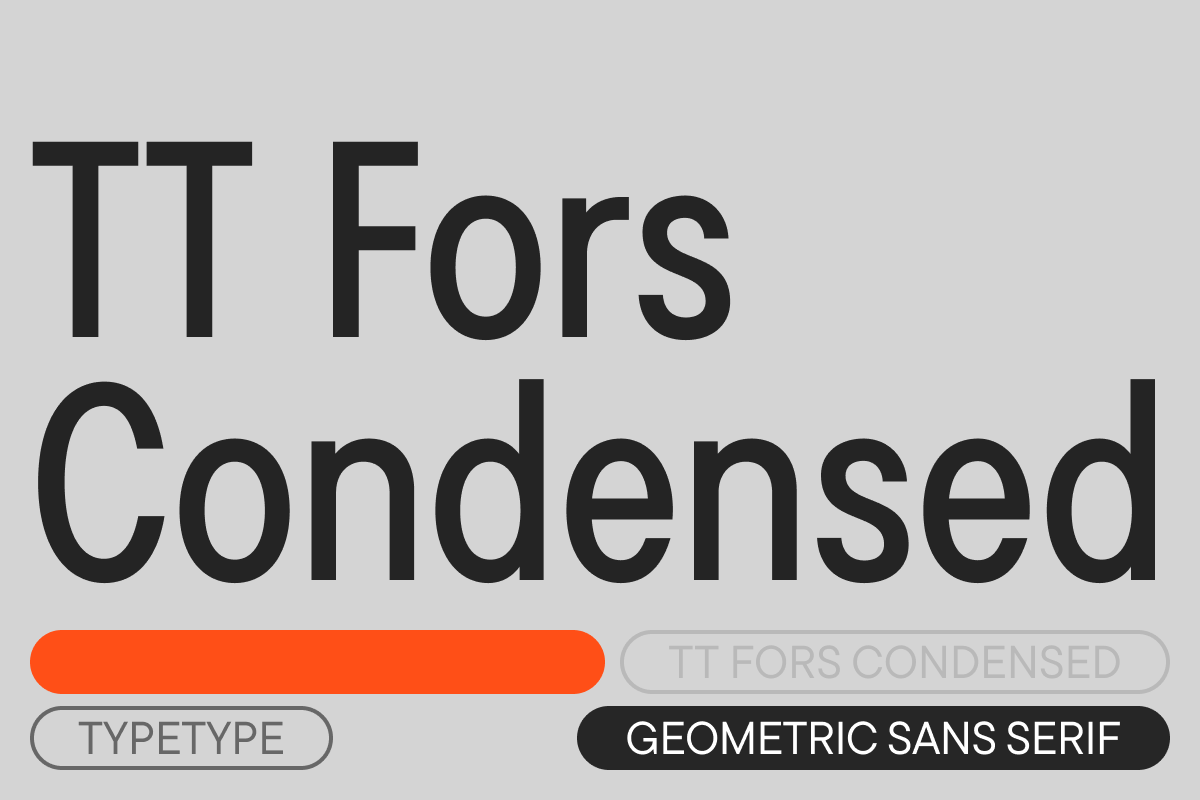
TT Fors Condensed DemiBold Italic
TT Fors is a geometric sans serif with a neutral character and refined proportions. The inspiration for creating TT Fors came from studying geometric sans serifs from the early to mid-20th century and analyzing their influence on the visual culture and design of that era. We aimed to create a typeface that, while maintaining a connection with the legacy of great typographers of the past, would meet modern requirements and solve contemporary challenges.